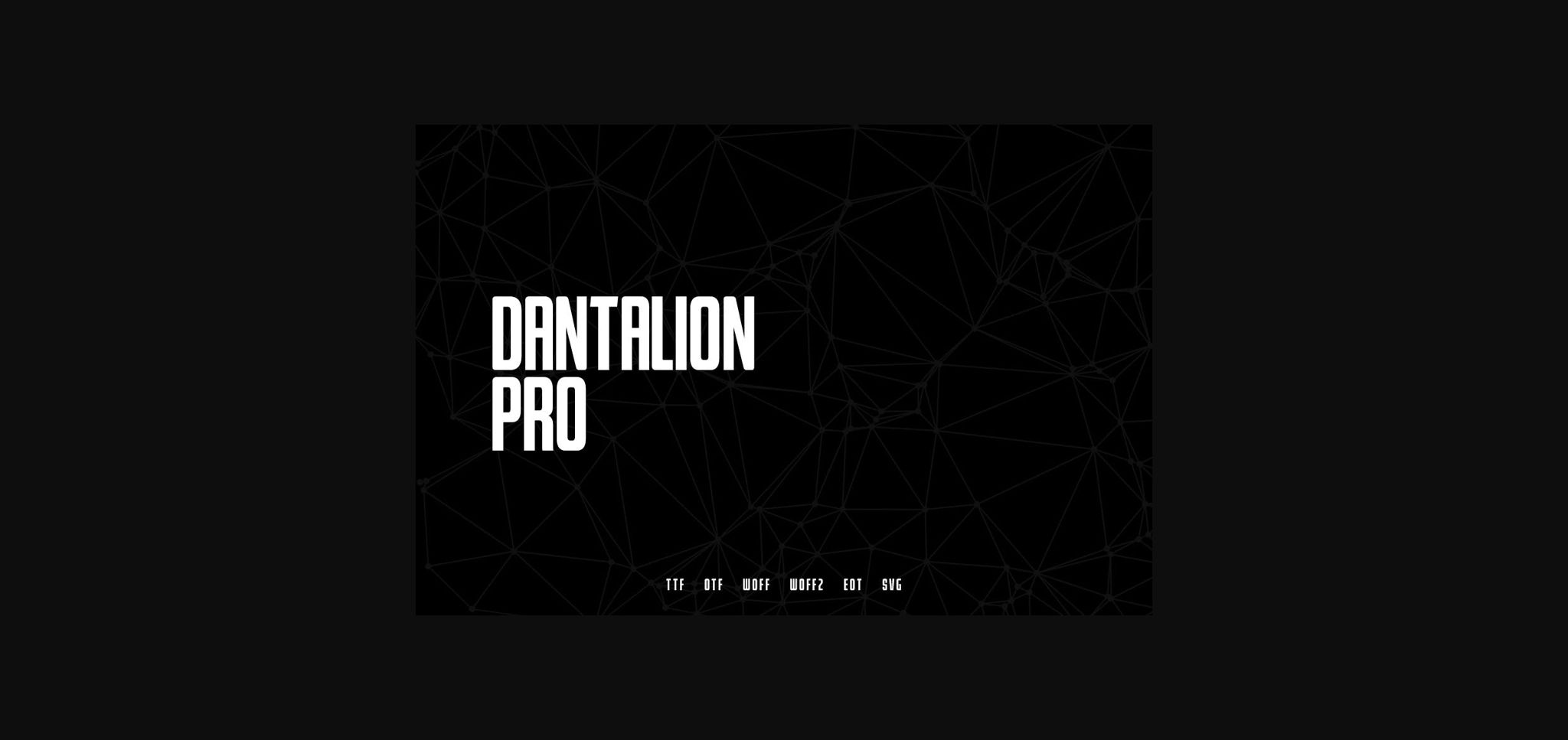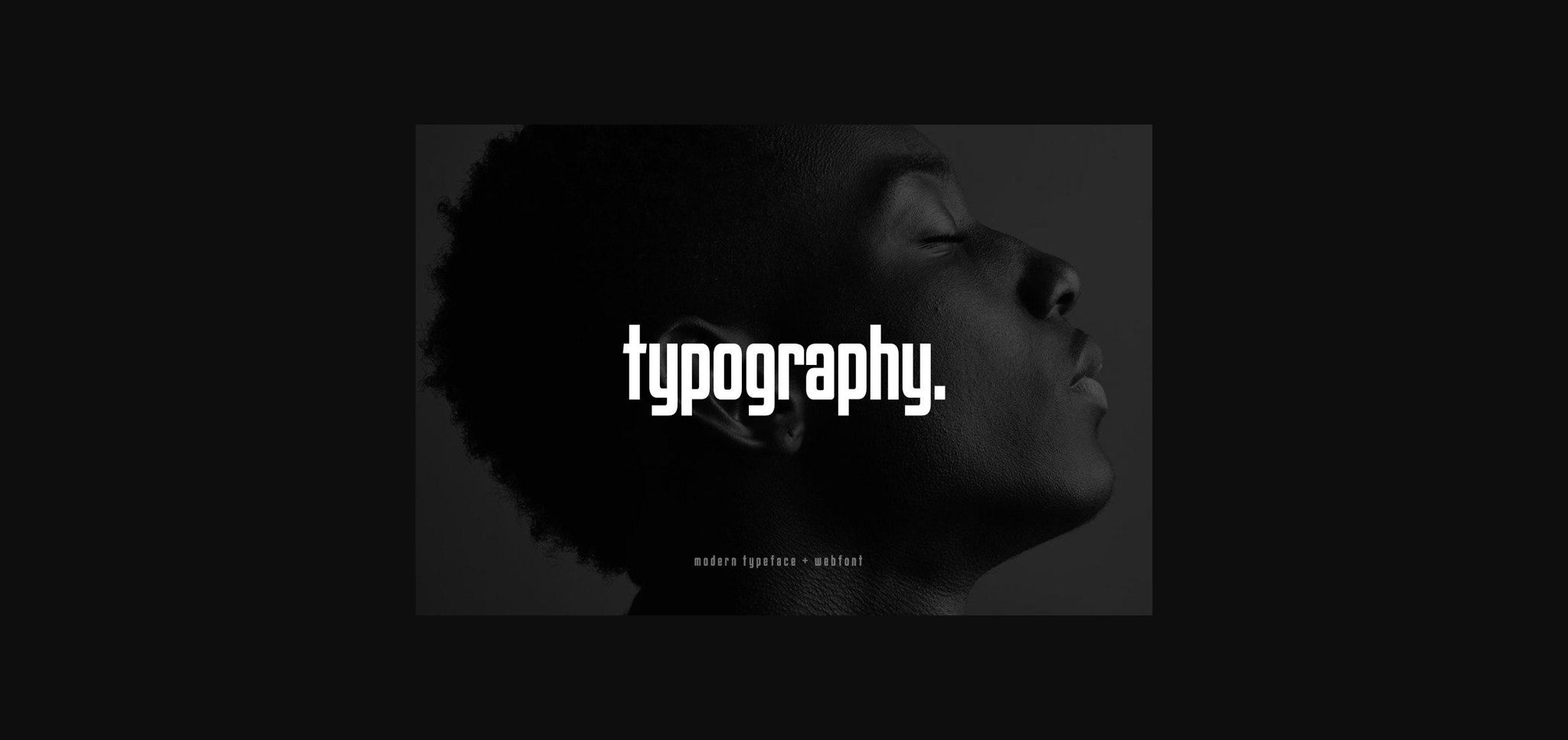
About Dantalion Font
Dantalion is a simple and minimal sans serif font. Its natural and unique style makes it incredibly fitting to a large pool of designs.